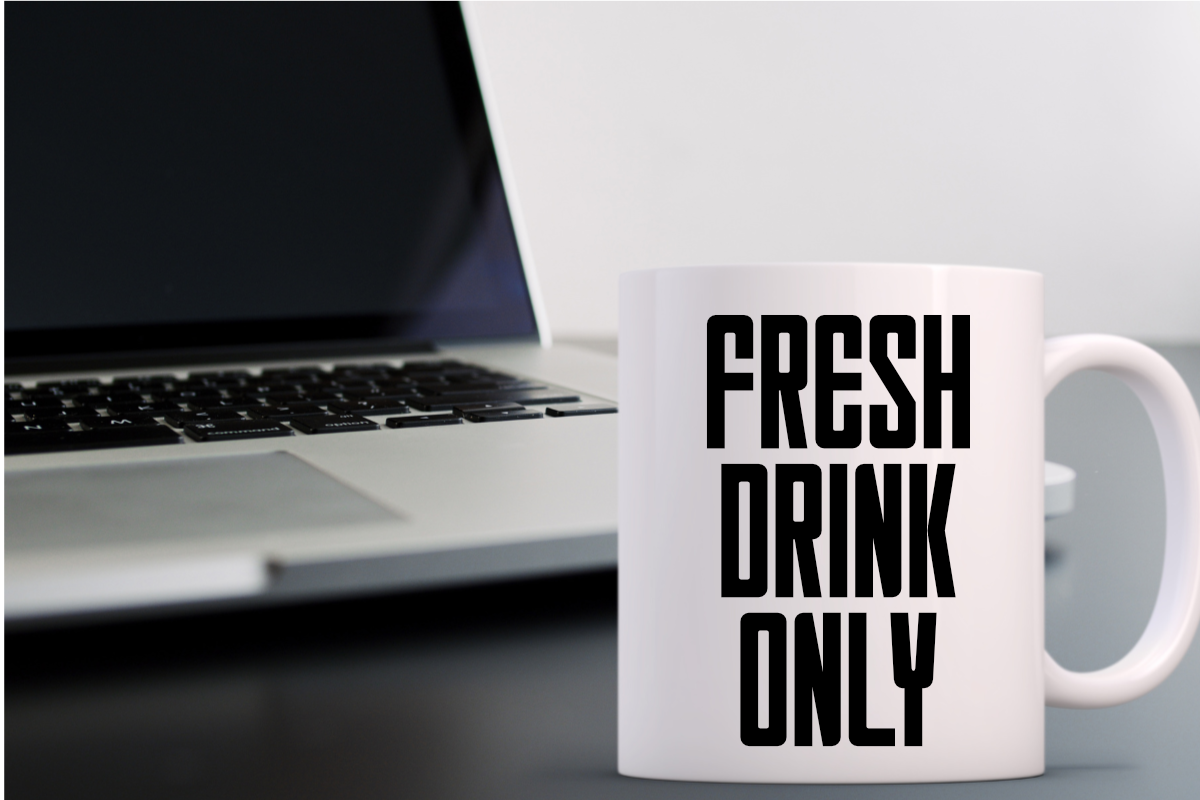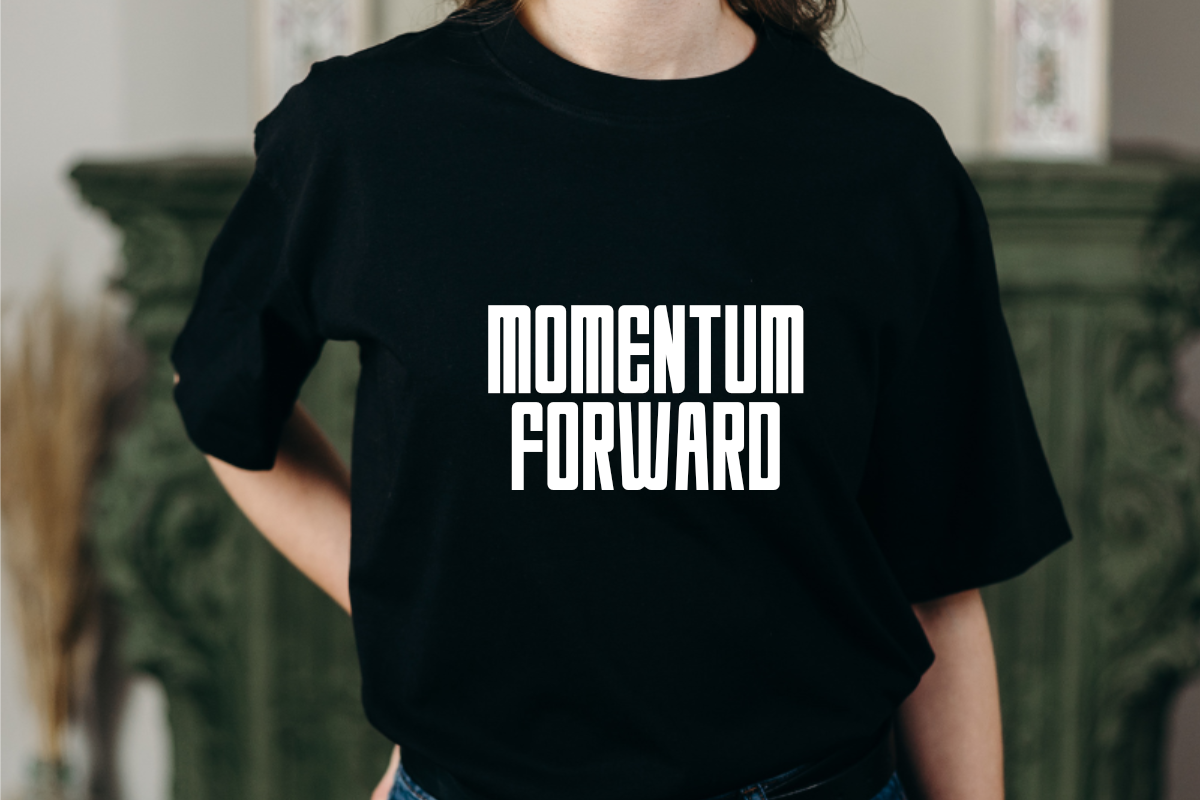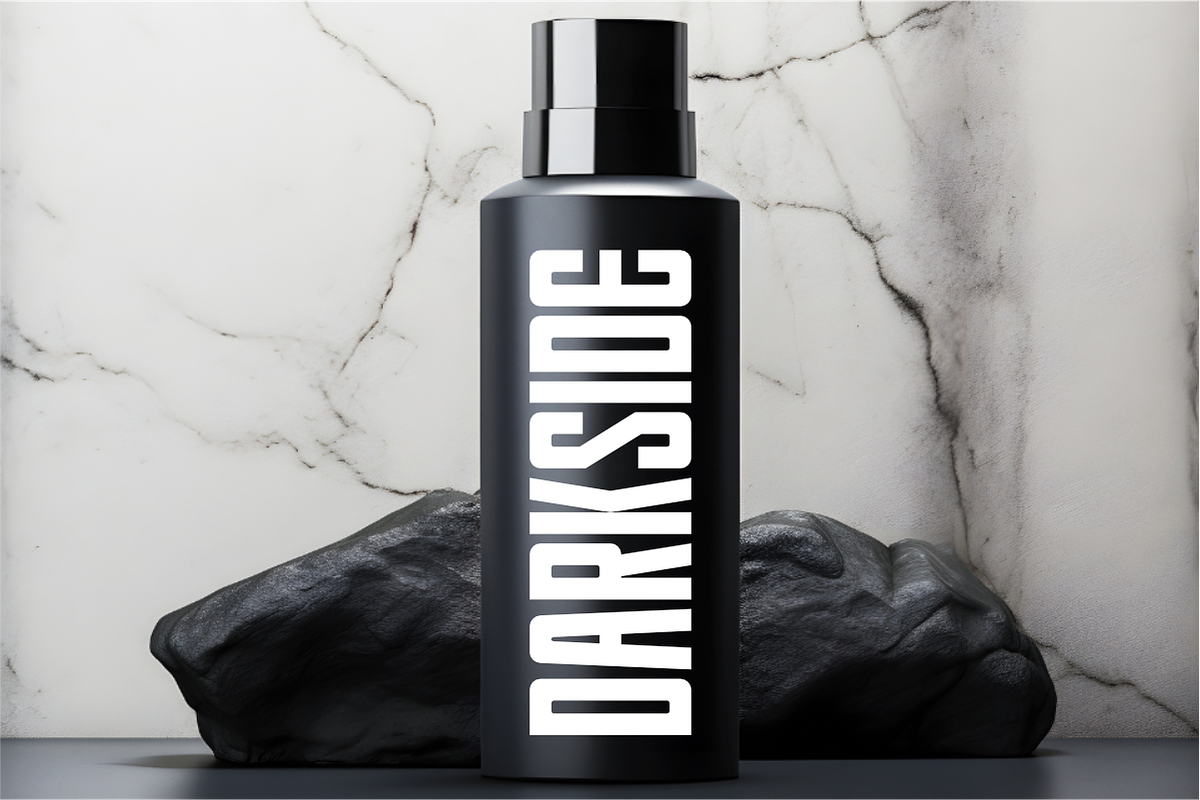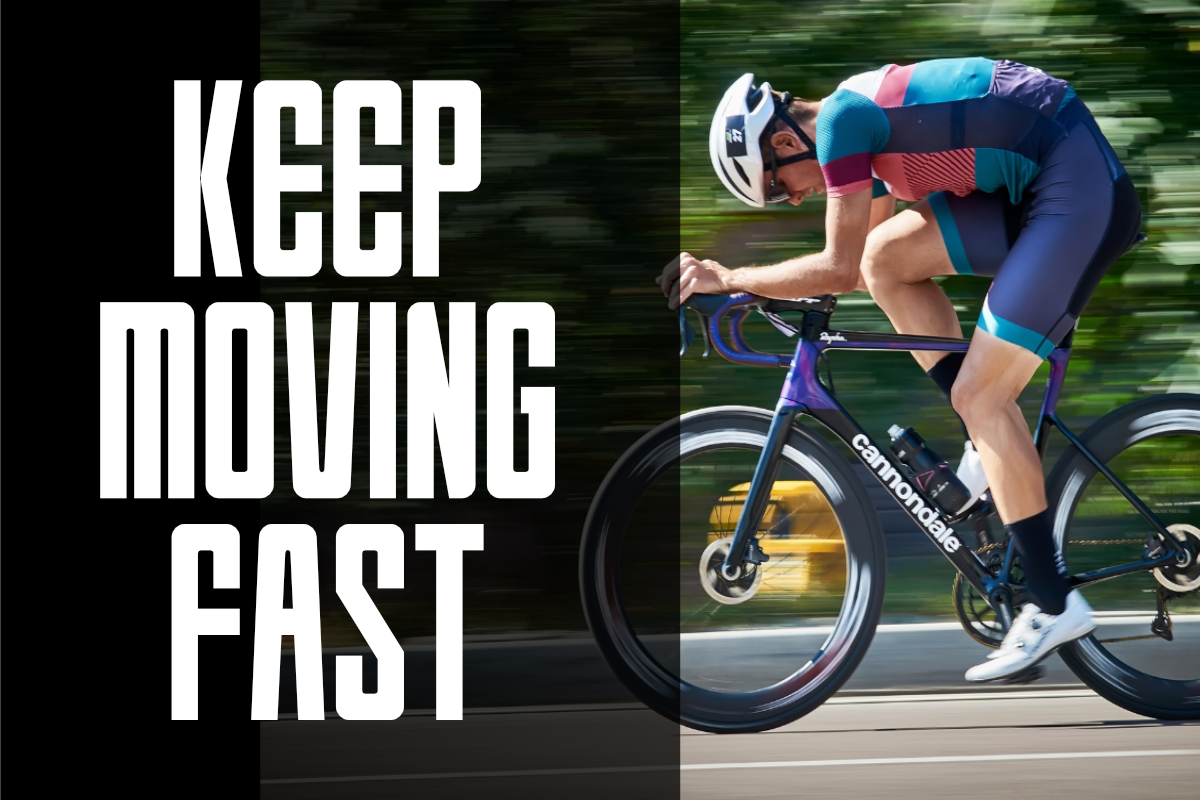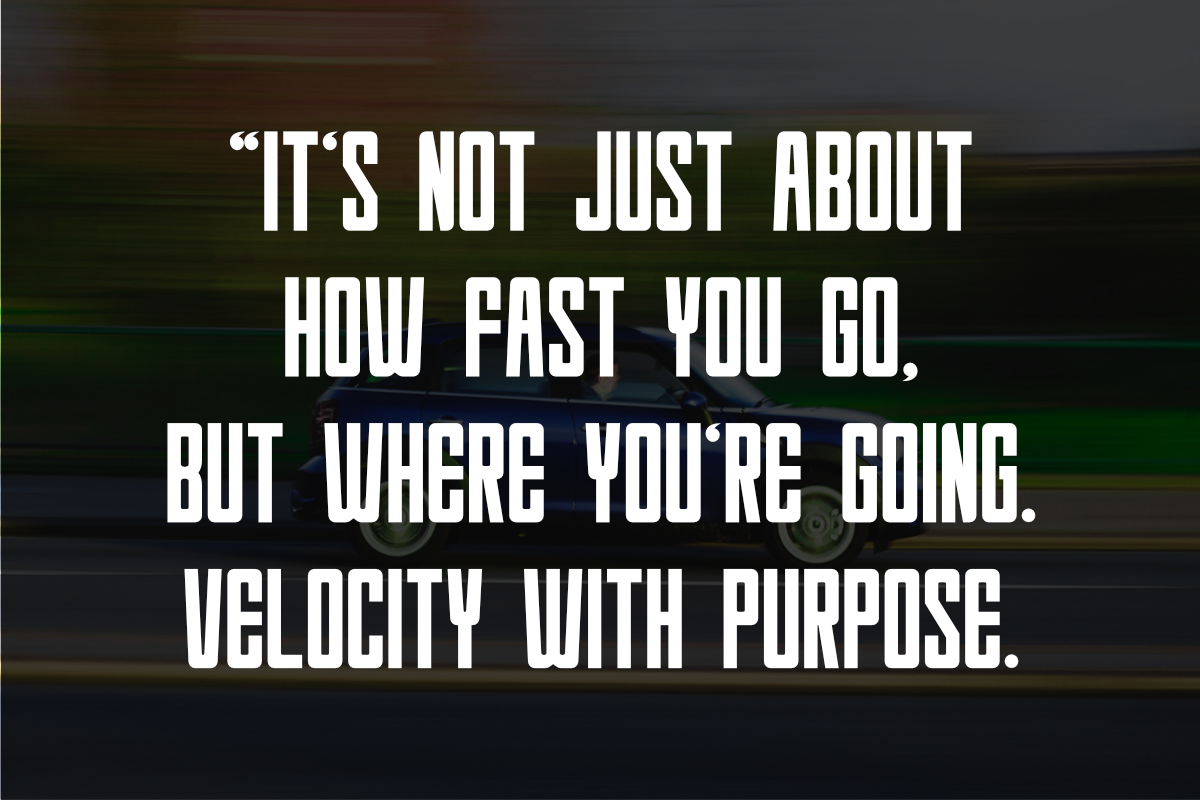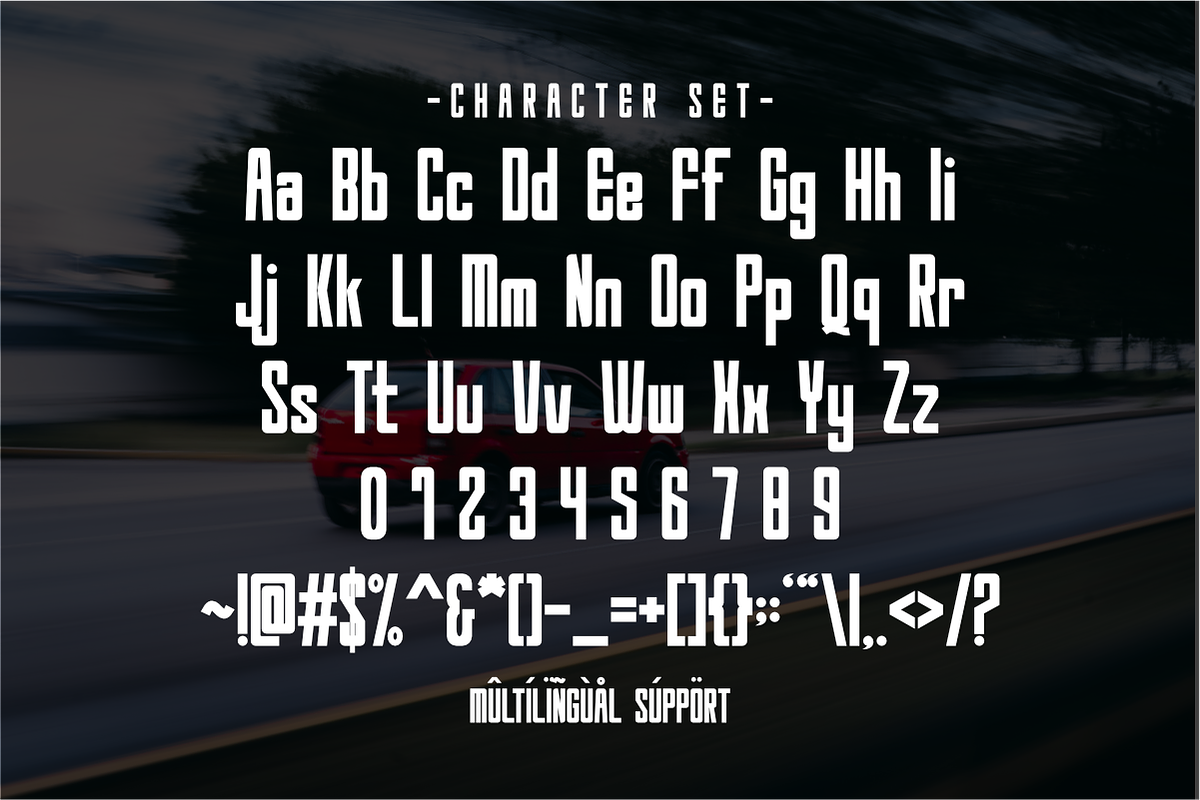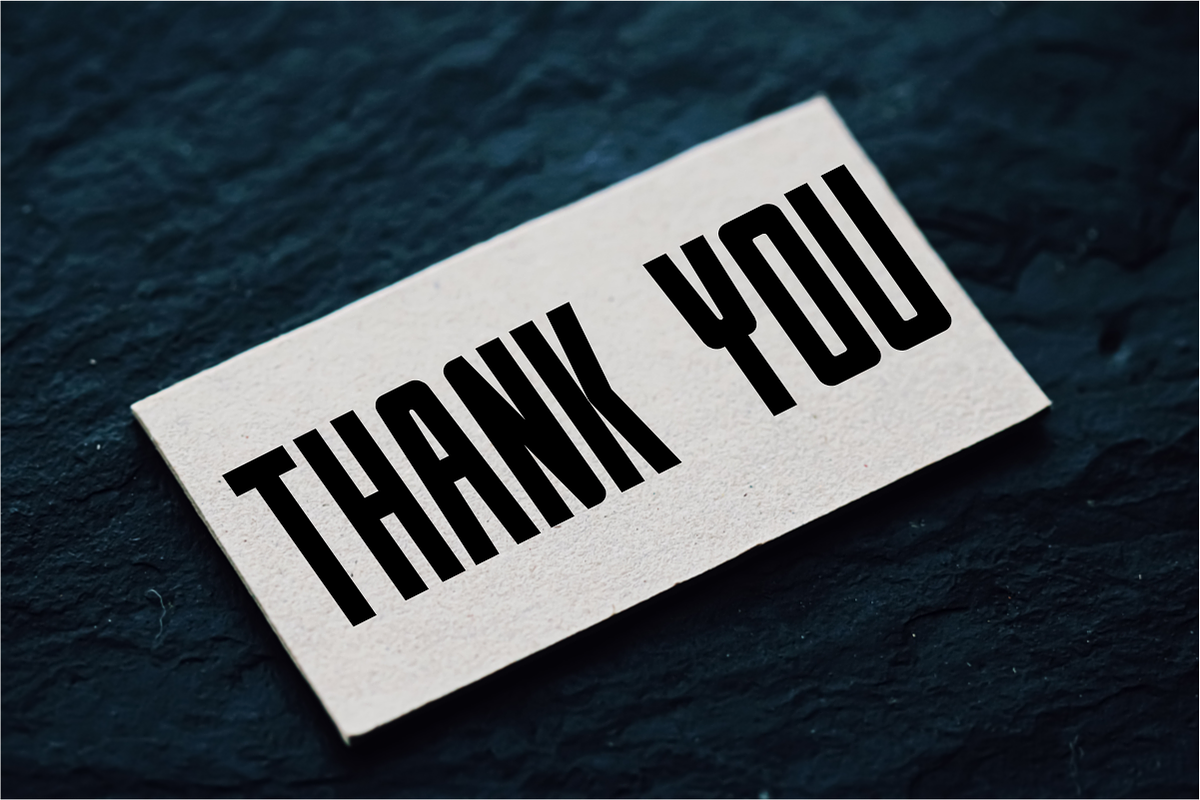
Velocity - Condensed Sans Serif
Velocity is a clean and condensed sans serif font designed for speed and efficiency. Its streamlined and modern design makes it perfect for projects that require a fast-paced and dynamic feel. Ideal for digital interfaces, branding, and high-impact headlines.